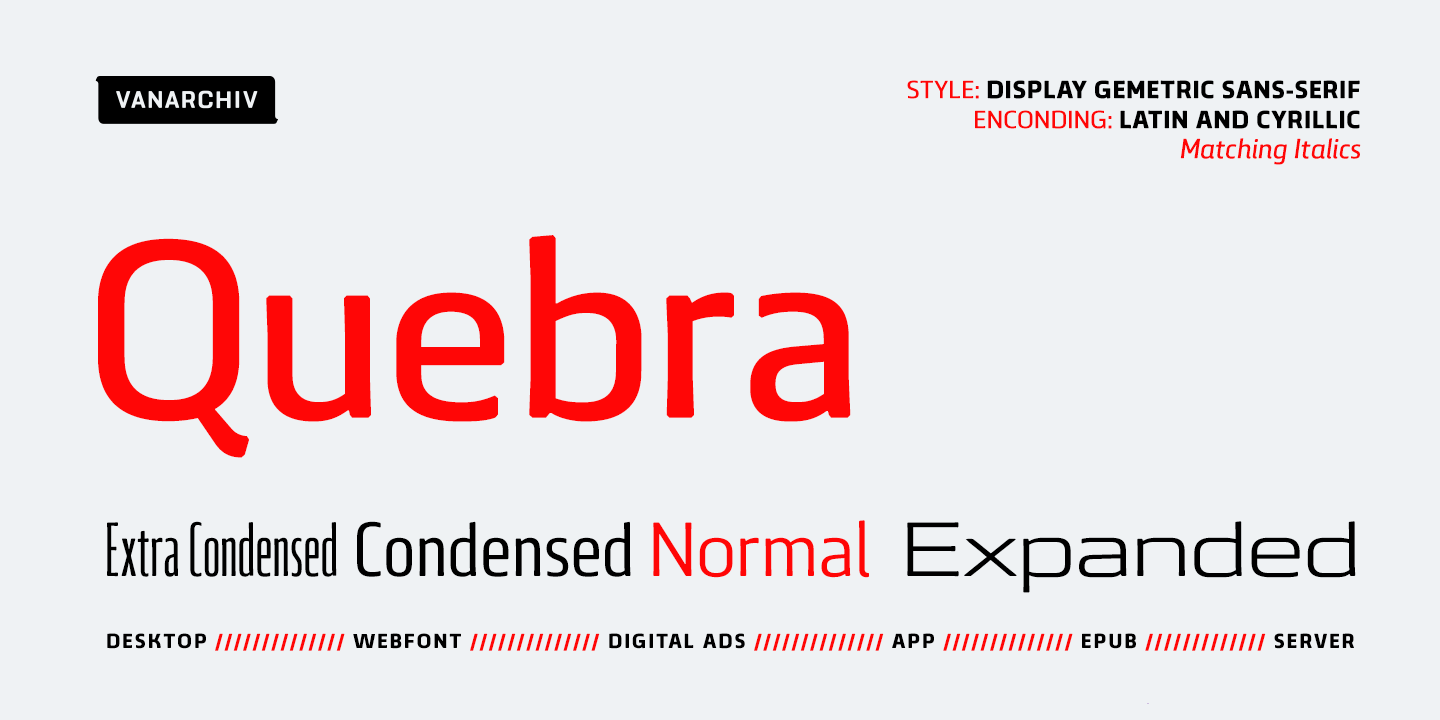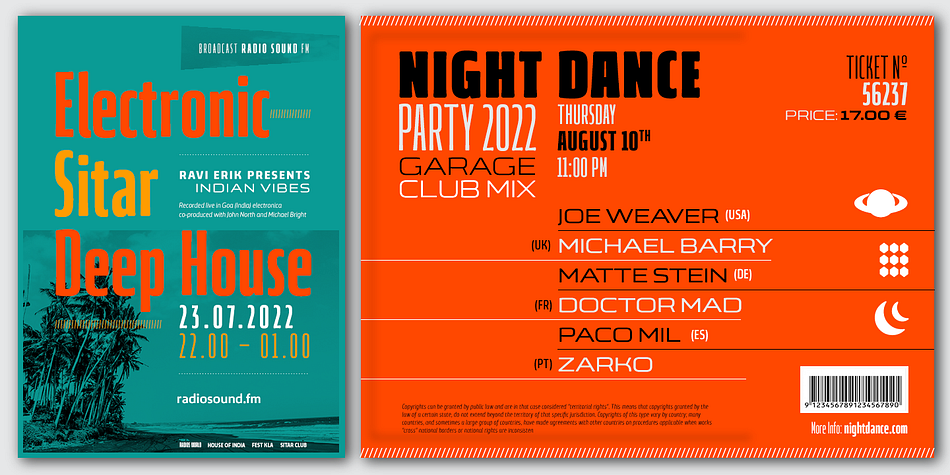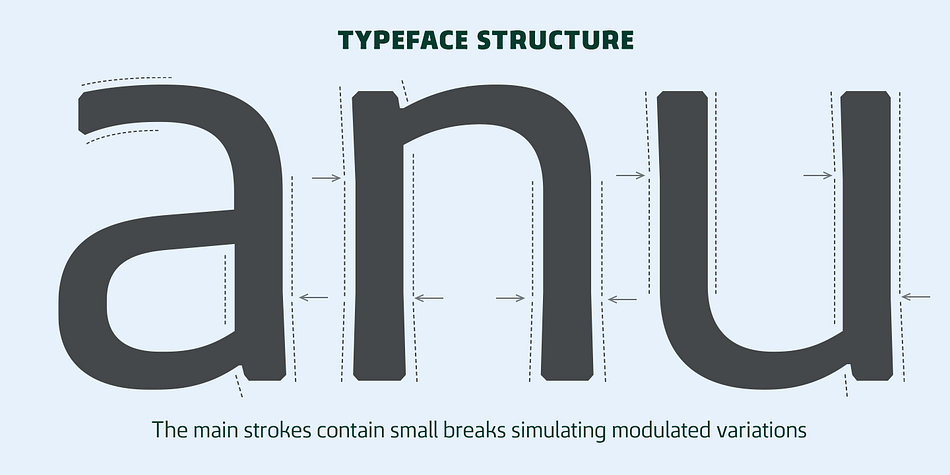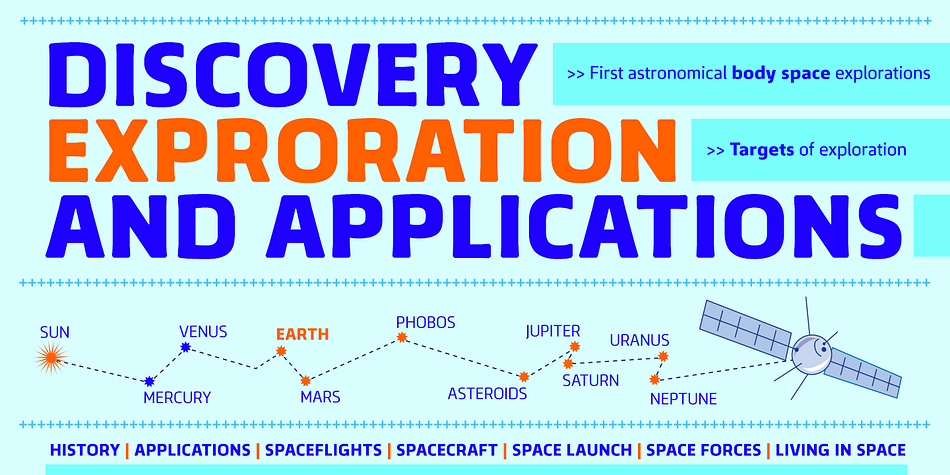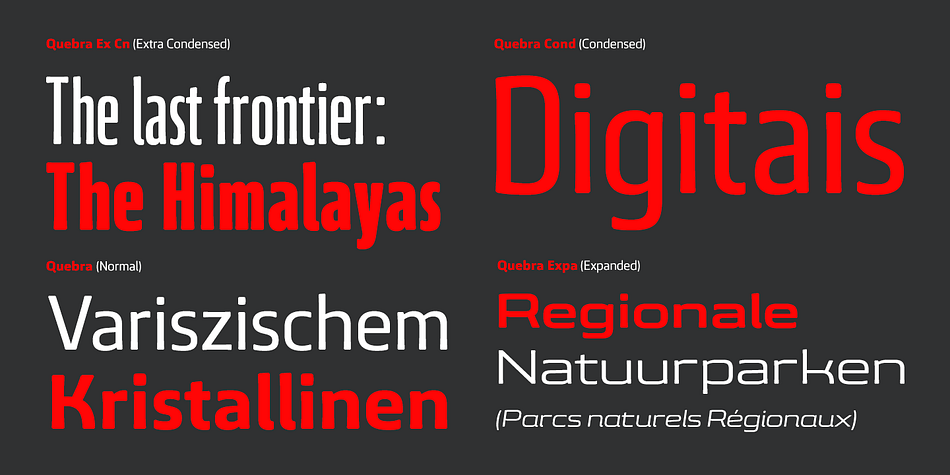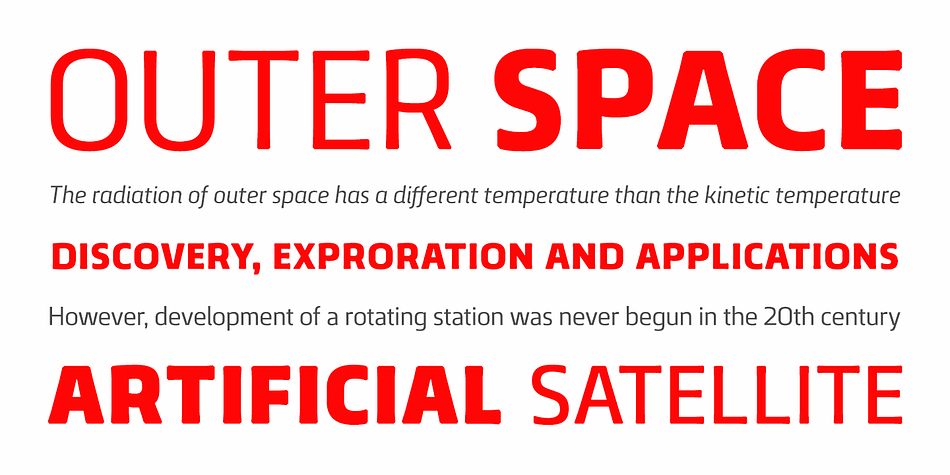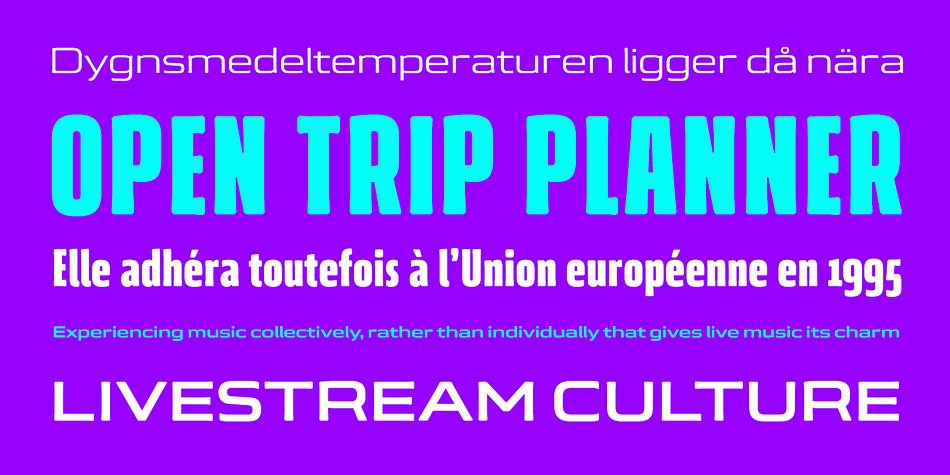
Designed by Ricardo Santos, Quebra is a sans serif font family. This typeface has twenty styles and was published by Vanarchiv.
Quebra is an extend display sans-serif font family, available with four widths (Extra Condensed, Normal and Expanded) and ten weights, italics versions are available. The main strokes contain small breaks simulating modulated variations on the letterforms, these details are more present on large body sizes. All font versions contain Latin and Cyrillic encoding characters and also ligatures, case-sensitive forms, fractions, oldstyle and finally tabular figures.
Foundry | Vanarchiv |
Designer | Ricardo Santos |